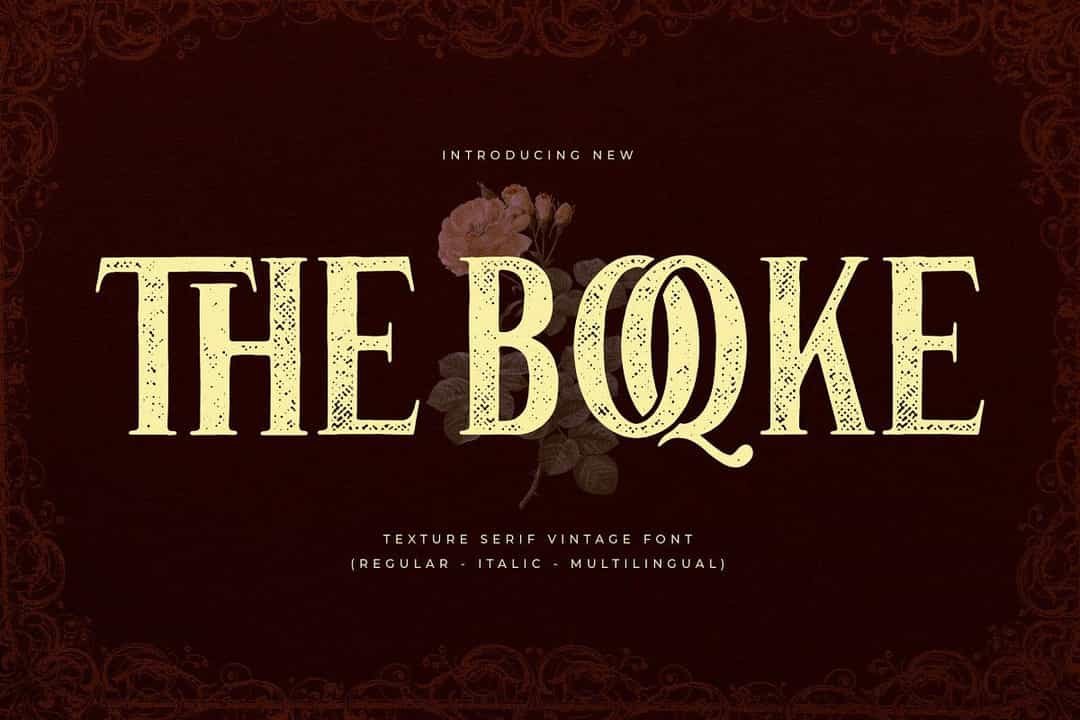
Boqke is a contemporary serif typeface with its distinctive style and contemporary appearance, making it perfect for creating classy logos, book/film name designs, fashion brand clothing lines, letters to magazines, quotes and much more.